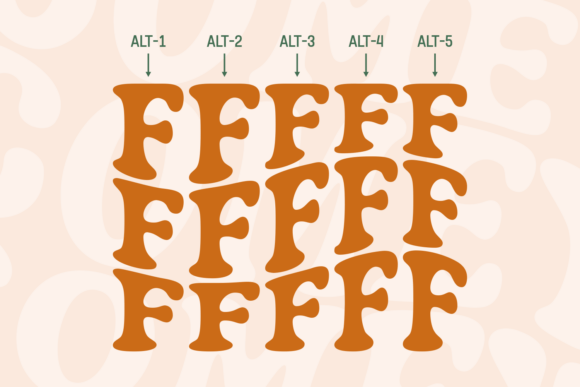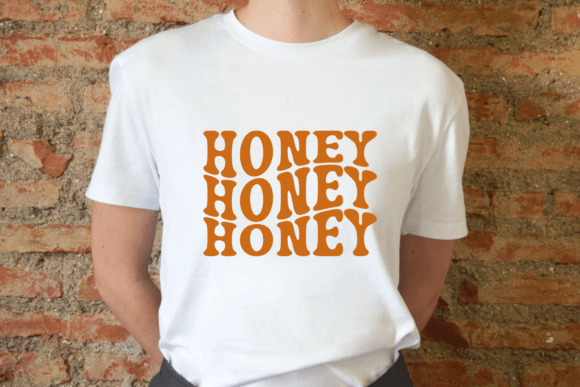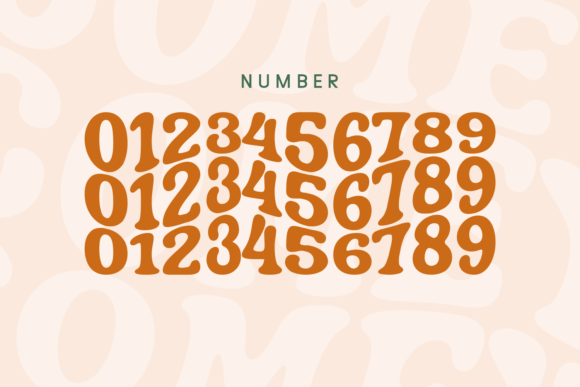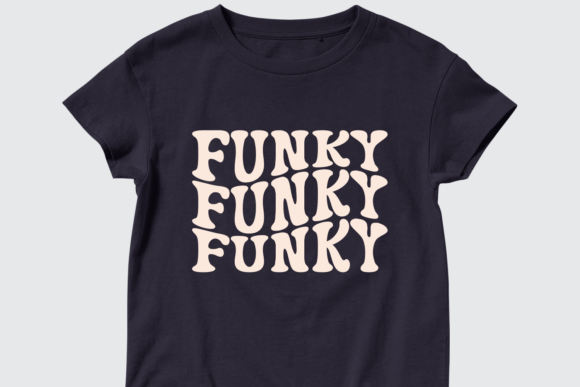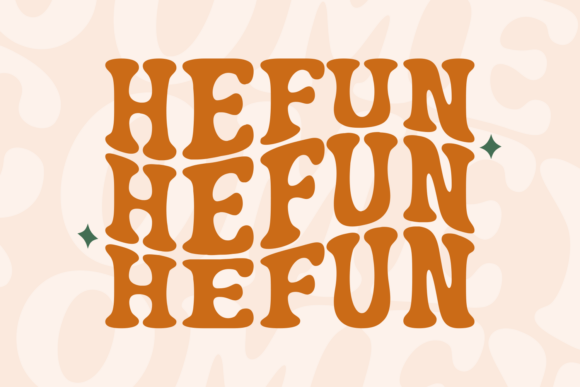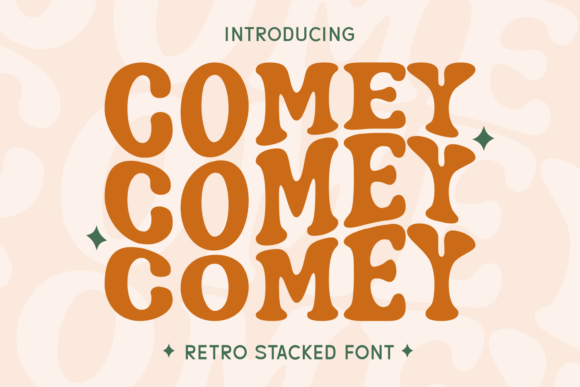
Step Back into the Grooviest Era of Design with Comey Font
Are you ready to transport your designs back to the vibrant and iconic 1970s? Look no further than Comey, a retro stacked display font that embodies the essence of this groovy era. With its ultra-bold serif letterforms, thick fluid stems, and beautifully curved terminals, Comey is the perfect choice for designers and crafters looking to add a touch of nostalgia to their visual assets.
The Unique Characteristics of Comey Font
Comey’s distinct vintage silhouette is what sets it apart from other fonts. Its stacked, rhythmic layouts create a mesmerizing, high-impact wave effect that commands immediate attention. The font’s unique personality shines through in its bold, eye-catching design, making it an extraordinary choice for a variety of applications, including retro lifestyle branding, groovy apparel designs, bold social media headers, merchandise lines, and vintage poster layouts.
Bringing Back the Funk with Comey
Comey delivers a strong sense of unyielding professional structure and legendary psychedelic cool to your visual assets. Its timeless, funky rhythm ensures that your headlines pop and leave a lasting impression on your audience. Whether you’re looking to create bold and eye-catching designs or simply add a touch of nostalgia to your visual assets, Comey is the perfect choice.
Perfect for Retro-Inspired Designs
Comey’s retro vibe makes it an ideal choice for designers and crafters looking to create vintage-inspired designs. From retro lifestyle branding to groovy apparel designs, Comey’s bold and eye-catching design is sure to turn heads. Its unique stacked layout also makes it perfect for creating bold social media headers, merchandise lines, and vintage poster layouts that demand attention.
Key Features of Comey Font
- Ultra-bold serif letterforms with thick, fluid stems
- Beautifully curved terminals for a smooth, vintage look
- Distinct vintage silhouette with a stacked, rhythmic layout
- Perfect for retro lifestyle branding, groovy apparel designs, and bold social media headers
- Great for merchandise lines, vintage poster layouts, and more
Tips for Using Comey Font
To get the most out of Comey, try using it in stacked, rhythmic layouts to create a mesmerizing wave effect. Experiment with different colors and textures to add depth and interest to your designs. You can also combine Comey with other fonts to create a unique and eye-catching look.
Comey is a vibrant retro stacked display font that is sure to transport your designs back to the grooviest era of design. With its unique characteristics, bold and eye-catching design, and timeless funky rhythm, Comey is the perfect choice for designers and crafters looking to add a touch of nostalgia to their visual assets. So why wait? Get ready to step back into the grooviest era of design with Comey Font!
Get Ready to Make Your Designs Pop with Comey